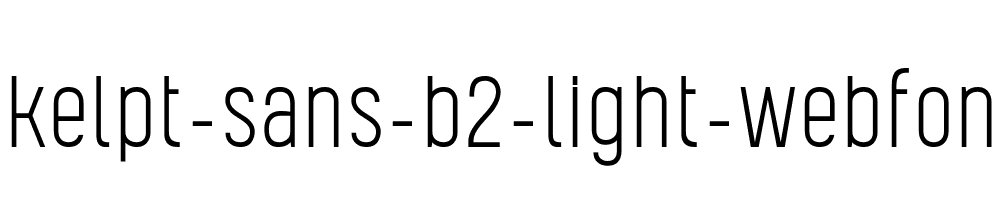
About kelpt-sans-b2-light-webfont
The font “kelpt-sans-b2-light-webfont” is a sleek and modern typeface designed by an unknown artist, part of the sans-serif family. Its clean lines and open counters give it a contemporary feel, perfect for digital and print projects alike. The font’s aperture is wide, creating a sense of openness and clarity, while its arcs are smooth and elegant. The apexes are subtly pointed, adding a touch of sophistication to the overall structure. Ascenders and descenders are balanced, providing a harmonious flow to the text. The gentle curves of the bowls and brackets give the font a friendly and approachable vibe, making it suitable for a wide range of uses.
Neutral – Expressive: With its balanced design and clean lines, “kelpt-sans-b2-light-webfont” falls into the neutral category, making it versatile for various design projects. Its expressive curves and elegant forms add a touch of personality without being overpowering. The font’s overall vibe is serious yet friendly, making it a great choice for both corporate and creative endeavors. The font’s stem is strong and sturdy, conveying a sense of reliability and trustworthiness. The subtle serifs and spurs add a classic touch to the otherwise modern design, striking a perfect balance between traditional and contemporary aesthetics.
Elegant – Rugged: The font “kelpt-sans-b2-light-webfont” exudes an air of elegance with its refined curves and graceful proportions. Its rugged appearance gives it a robust and versatile quality, perfect for a wide range of design applications. The font’s terminals are artfully crafted, adding a touch of finesse to the overall look. The hairlines are delicate, yet strong, creating a sense of sophistication and refinement. The font’s loops and links are seamlessly integrated, enhancing the overall cohesion of the design. The font’s vertex is sharp and precise, adding a distinctive edge to the otherwise smooth lines. Its expressive nature and elegant styling make it a standout choice for any design project.
Serious – Friendly: “kelpt-sans-b2-light-webfont” strikes the perfect balance between seriousness and friendliness, making it an ideal choice for communication that needs to be taken seriously but also approachable. The font’s shoulder is strong and stable, creating a sense of solidity and dependability. Its spines are straight and well-defined, giving the font a structured and organized appearance. The font’s joints are seamless, adding to the overall cohesiveness of the design. The font’s crotch is subtle yet impactful, adding a touch of flair to the otherwise understated aesthetic. Its classic styling and friendly vibe make it a versatile option for a variety of design projects.
Overall, the font “kelpt-sans-b2-light-webfont” is a versatile and sophisticated typeface that can adapt to different design needs. Its elegant yet rugged appearance makes it a standout choice for both serious and friendly communication, striking a perfect balance between tradition and modernity. Whether used in print or digital formats, this font’s expressive nature and clean design are sure to make a lasting impression.